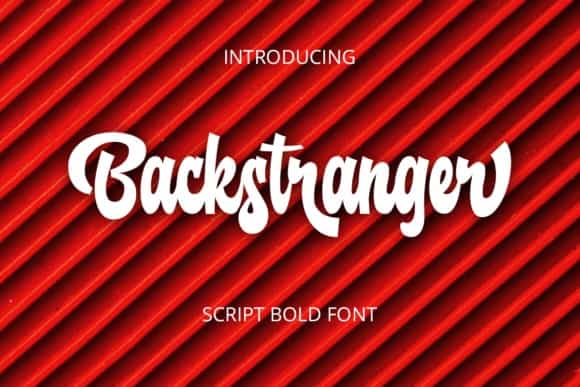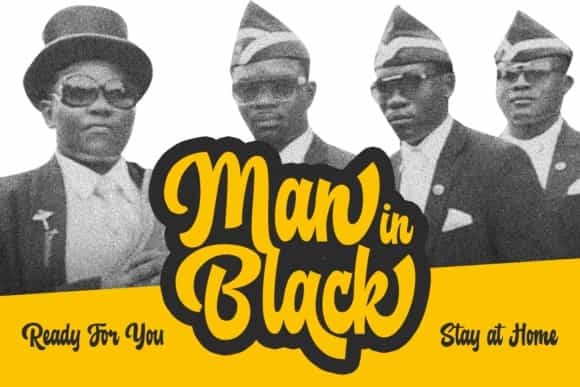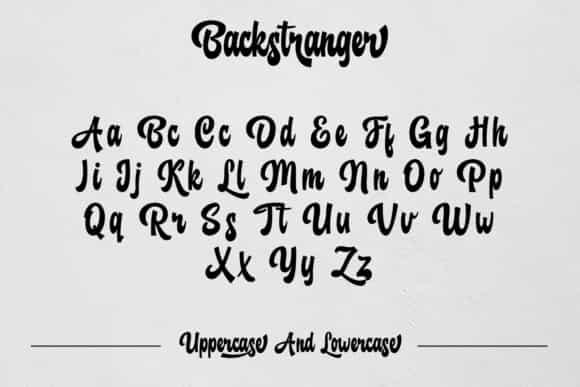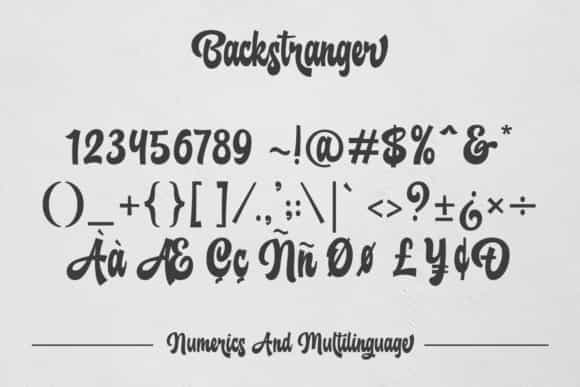
Discover Backstranger Bold Script Font, part of the Calligraphy Script collection—a versatile and unique font perfect for adding a personal touch to your projects. Download it for free and enjoy crafting designs with style, from invitations to social media posts. This font is available exclusively for personal use, giving you the freedom to create without limits. Unlock your creativity with Backstranger Bold Script Font today!
Backstranger is a bold free script font that was made by hand to be used as a preferred font. Thus, it looks rather graceful and unpretentious, even homespun; most importantly, it is highly flexible. This font is versatile, and it will look good even when used on complex backgrounds or solo on the headline!